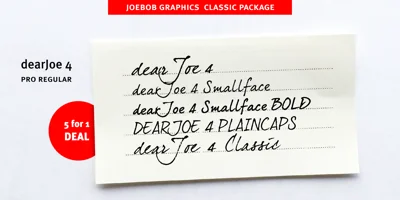
DearJoe 4 Font is ideal for personal blog designs, handwritten greeting cards, artisan craft branding, boutique coffee shop signage, wedding stationery, journaling applications, indie brand identity, organic product packaging, creative workshop materials, handmade business logos, personal photography watermarks, and intimate marketing campaigns. This authentic typeface brings genuine human connection to projects requiring personal touch and heartfelt communication.
What makes DearJoe 4 Font so exciting is its remarkable ability to capture the authentic warmth and personality of genuine handwriting that creates instant emotional connection with audiences. The font features naturally flowing letterforms with subtle imperfections and organic variations that mirror real pen-and-paper writing, making every word feel personal and sincere. Its intimate character conveys authenticity and human touch in an increasingly digital world, making it perfect for brands seeking to build genuine relationships with their audience through heartfelt communication.
The DearJoe 4 Font family includes multiple stylistic variations and connecting ligatures that enhance its handwritten authenticity, providing designers with comprehensive options for creating natural-looking handwritten compositions. Each variant maintains the original's personal character while offering flexibility for different applications requiring genuine human touch.
Whether you're developing personal brand identities, creating intimate marketing materials, or designing heartfelt communications, DearJoe 4 Font offers the perfect combination of authentic handwriting charm and professional reliability. This exceptional typeface brings genuine human warmth to design projects, making it an indispensable choice for designers seeking typography that effectively communicates sincerity, authenticity, and personal connection with meaningful emotional impact.